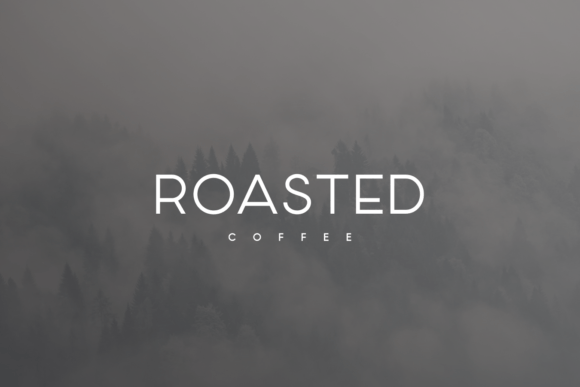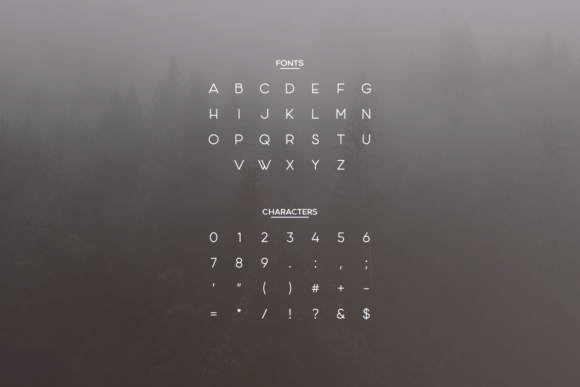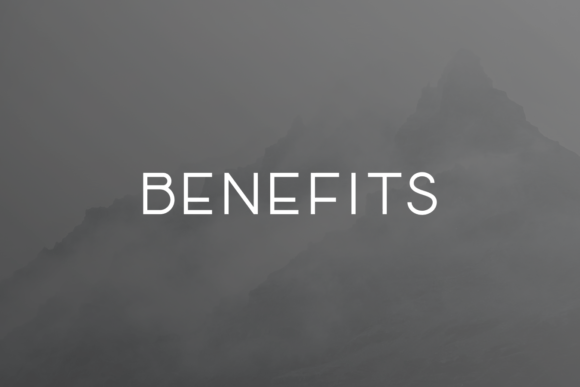
Introduction to Hopbred Font
Hopbred is a modern and stylish sans serif font.
This font would be ideal for web design, business cards, or just about anything else that requires a unique touch .
Why Choose Hopbred Font?
Hopbred Font offers exceptional quality and versatility, making it a valuable addition to your design toolkit. Whether you’re creating for personal projects or commercial use, Hopbred Font delivers professional results.